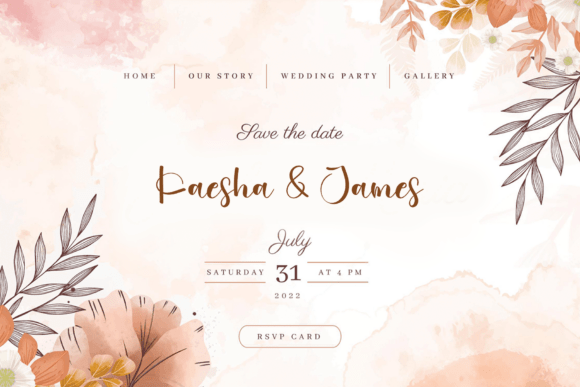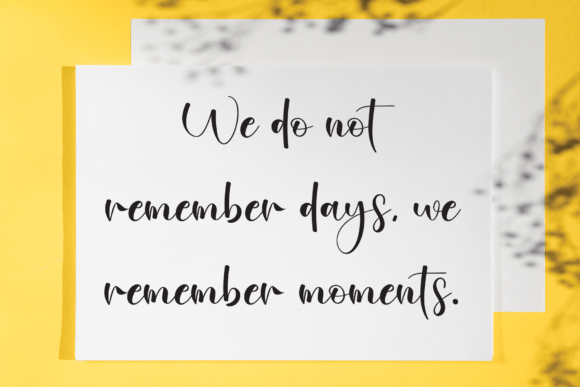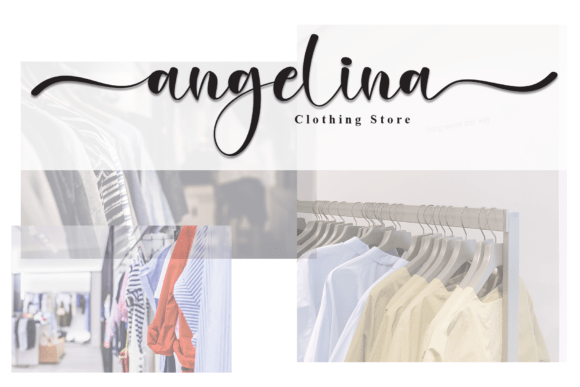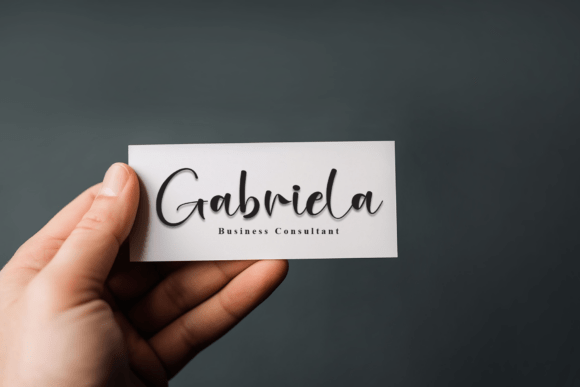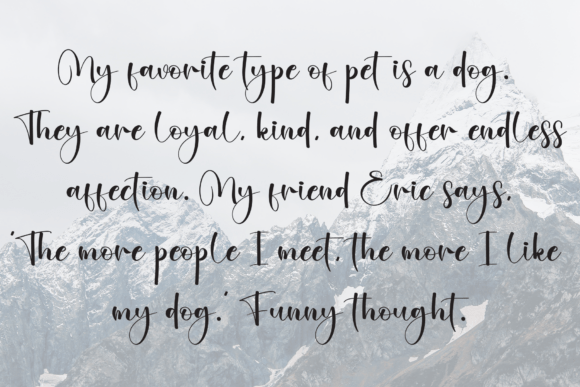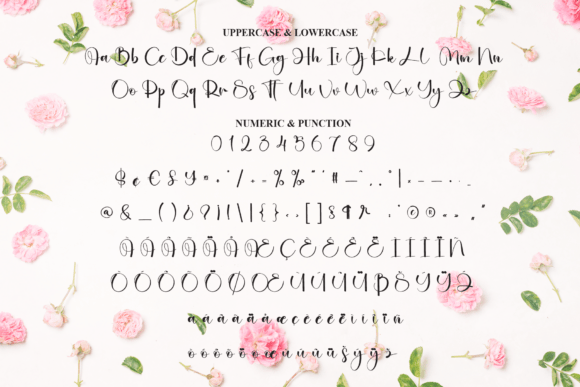
Introducing Anitha Font: Elevate Your Designs with Elegance and Modern Flair
In the world of typography, a font can make or break the aesthetic of a design project. For those seeking a typeface that exudes elegance, sophistication, and a touch of modernity, look no further than Anitha Font. This stylish handwritten script font is designed to bring a personal, refined touch to any project, making it ideal for designers, crafters, and anyone looking to elevate their brand or creative endeavors.
The Charm of Anitha Font
Anitha Font is characterized by its flowing strokes and organic curves, which work in harmony to create a sense of warmth and sophistication. This beautiful script font combines the elegance of traditional calligraphy with the modern flair of contemporary design, making it a versatile choice for a wide range of applications. Whether you’re working on branding materials, invitations, social media graphics, or any other project that requires a touch of personality, Anitha Font is sure to impress.
Key Features of Anitha Font
- Elegant Handwritten Script: Anitha Font boasts a stylish, handwritten script that adds a personal touch to any design.
- Flowing Strokes and Organic Curves: The font’s flowing strokes and organic curves create a sense of movement and fluidity, bringing warmth and sophistication to your designs.
- Modern Flair: Anitha Font’s modern design elements ensure that your projects look contemporary and fresh, perfect for brands and designers looking to make a statement.
- Versatile: This typeface is suitable for a wide range of applications, including branding, invitations, social media graphics, and more.
Why Choose Anitha Font?
With so many fonts available, why choose Anitha Font for your next project? Here are just a few reasons why designers and crafters are falling in love with this beautiful script font:
- Unique and Memorable: Anitha Font’s distinctive style ensures that your designs stand out from the crowd, making a lasting impression on your audience.
- Easy to Read: Despite its elegant and cursive nature, Anitha Font remains highly legible, making it perfect for body text and headlines.
- Customizable: With its range of weights and styles, Anitha Font can be tailored to suit your design needs, ensuring a perfect fit for your project.
Using Anitha Font in Your Designs
Anitha Font is incredibly versatile, making it suitable for a wide range of design applications. Here are a few ideas to get you started:
- Branding: Use Anitha Font to create a unique and memorable brand identity that sets you apart from the competition.
- Invitations: Add a touch of elegance and sophistication to your invitations, whether it’s for a wedding, birthday, or other special occasion.
- Social Media Graphics: Elevate your social media presence with eye-catching graphics that showcase your brand’s personality.
In conclusion, Anitha Font is a stylish and sophisticated script font that is sure to elevate your designs to the next level. Its elegant handwritten script, flowing strokes, and organic curves make it the perfect choice for designers and crafters looking to add a personal, refined touch to their projects. With its versatility, readability, and customizability, Anitha Font is an excellent addition to any design toolkit.